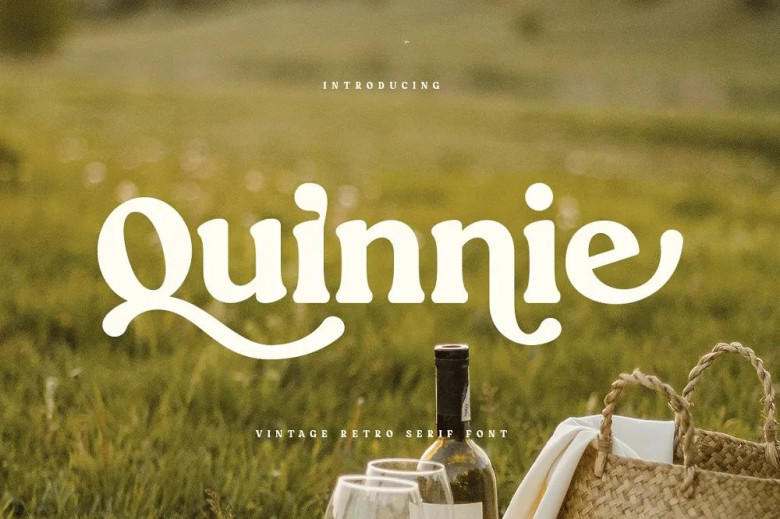
Quinnie Font
Quinnie is a beautiful and modern retro font, it has a fancy and special vintage serif style font that you can match and mix to get any styles and looks and different shapes in an instant with the choose of the alternates. It is a display font of sans serif based which has a moderate contrasting perfect for branding, logo wedding, product, packaging, product design, labels, invitation, stationary and any project with readability factor.
Quinnie Retro Serif Font